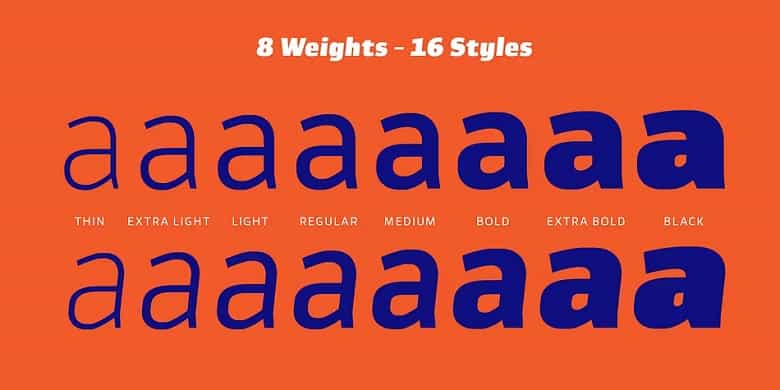
Nogal is a contemporary geometric industrial sans serif font family. The complete type system comprises 16 styles: There are 8 upright and 8 italics, each with more than 640 glyphs. This is a highly useful font that can be used in a number of different designs; for logos, editorial work, and screens. Due to its minimalism and non-biased look, it finds its best application in a vast number of branding projects, as well as sign and navigation systems.